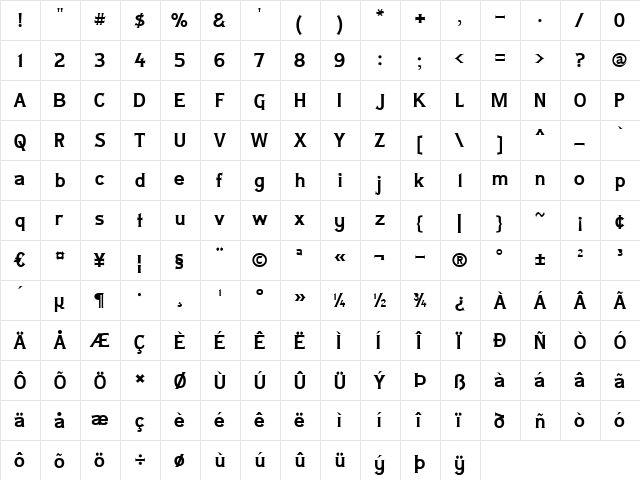
Lady Copra Regular
| Designer | Graham Meade |
Design Context for Lady Copra Typeface
Lady Copra offers clean, dependable letterforms without strong stylistic allegiance, making it a practical choice for designers who need flexibility.